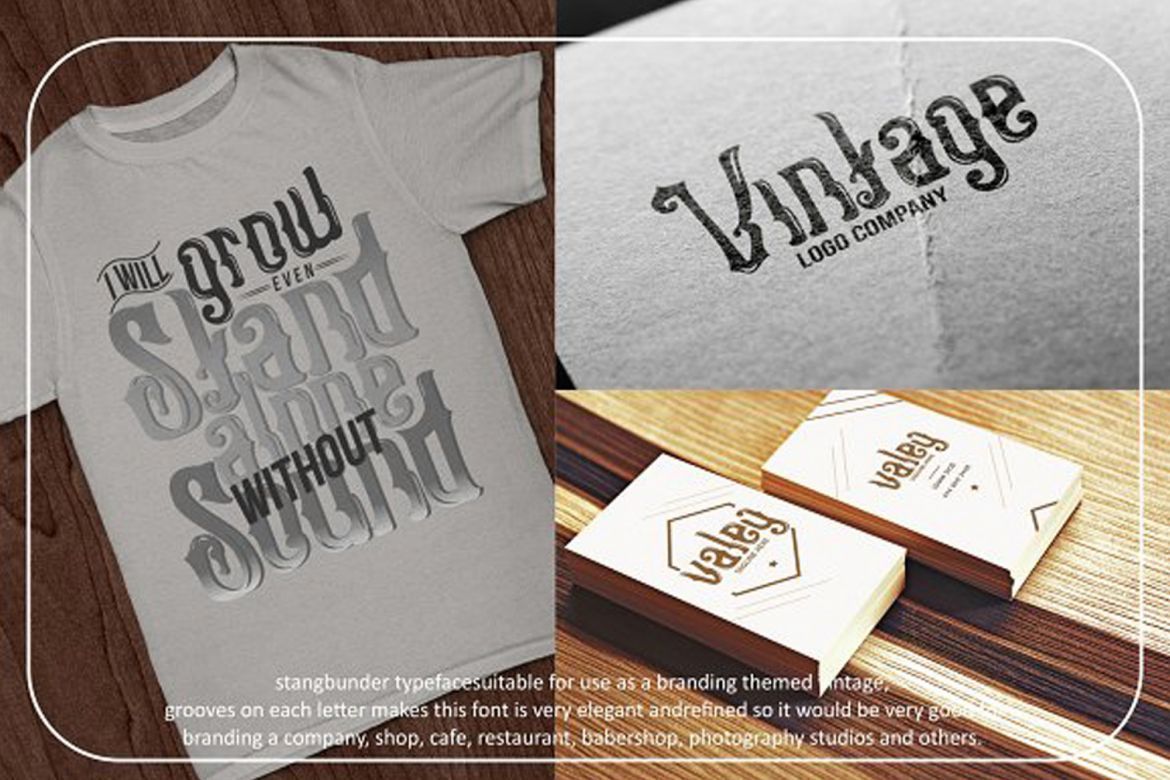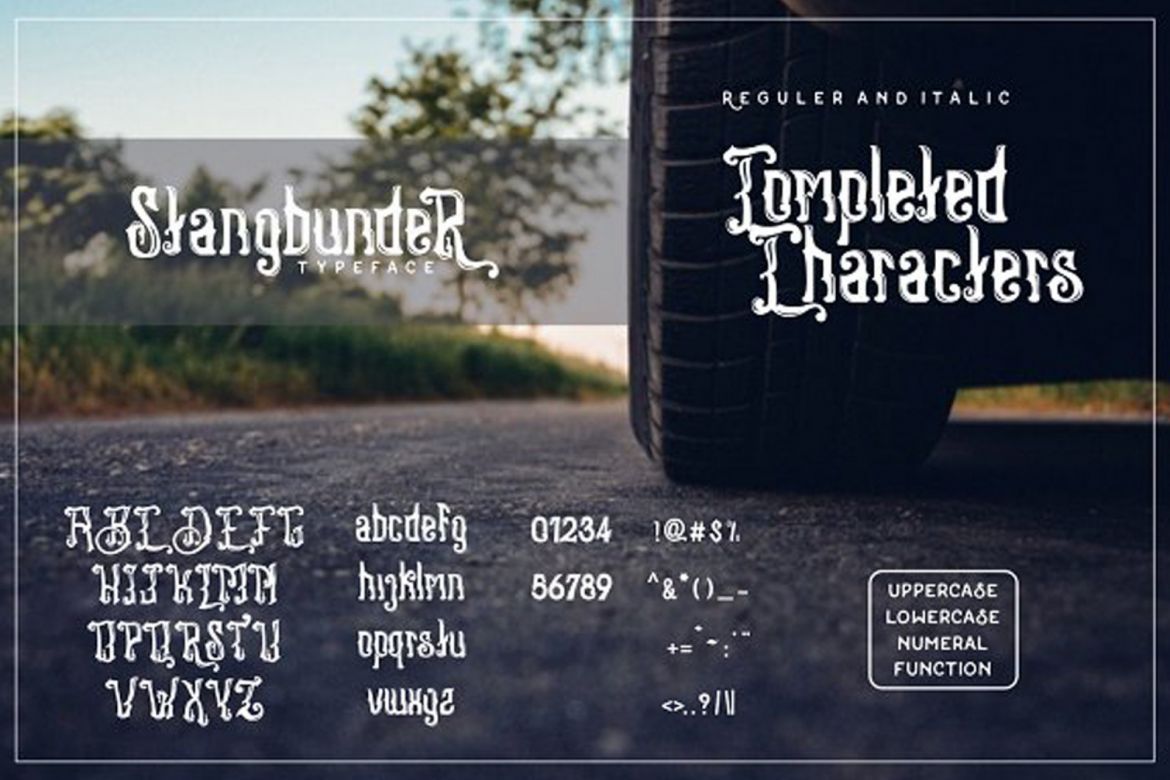
Stangbunder Typeface
Stangbunder Typeface is a vintage display type. It suitable for branding, poster, logos, quotes, blog design, vintage advertising design, invitation, Home decor, Book/Cover Title, Invitation, special events, movie poster, album cover, t-shirts, any handmade vintage type needs and more. File include: ttf and otf , reguler and italic style. Happy creating!
• unique style typefaces